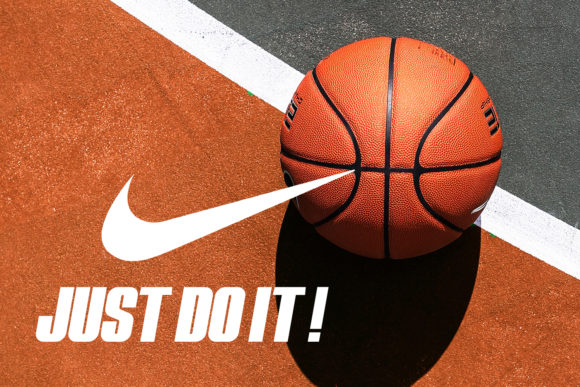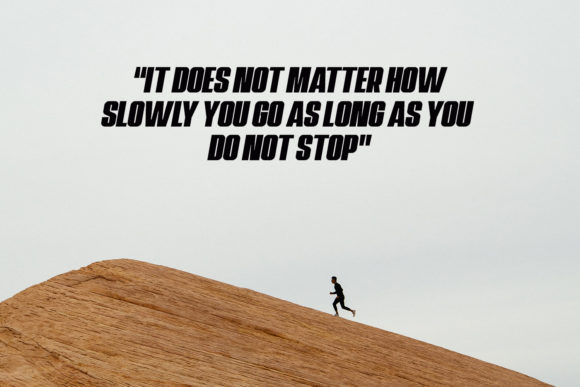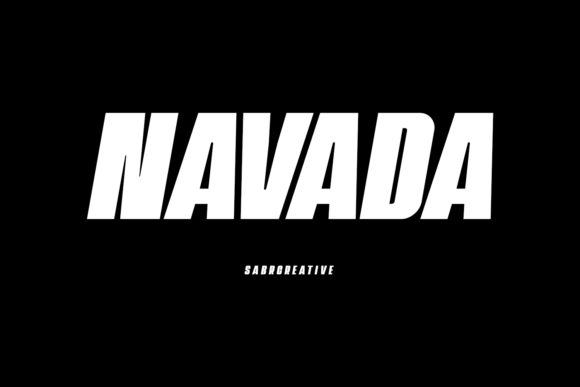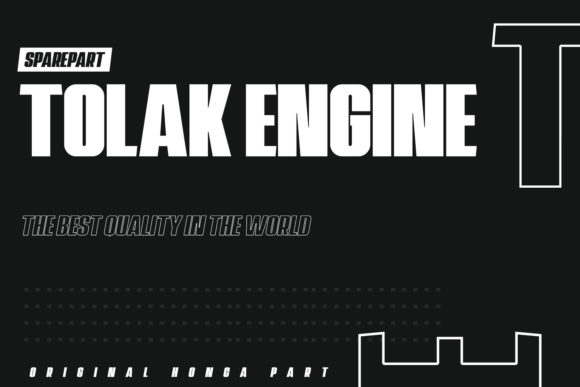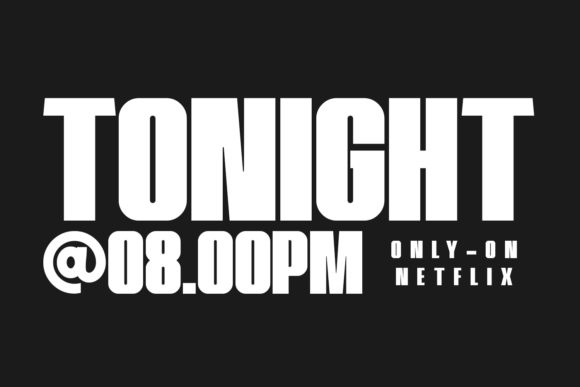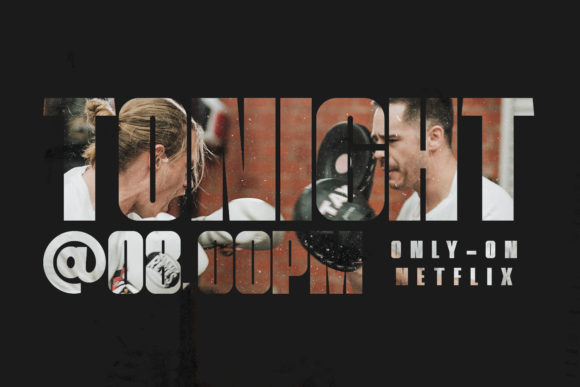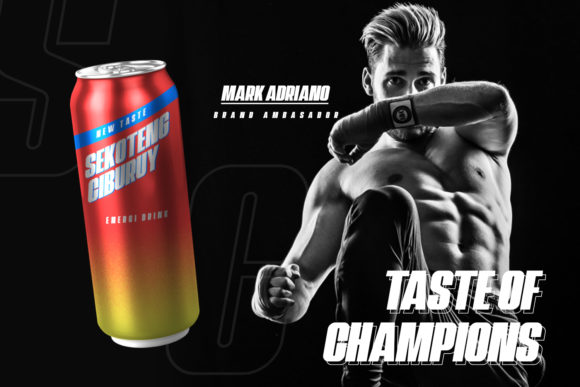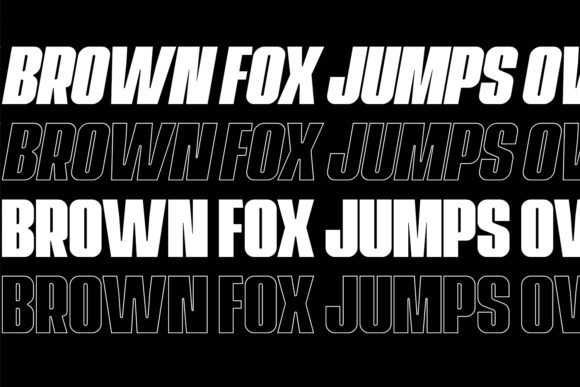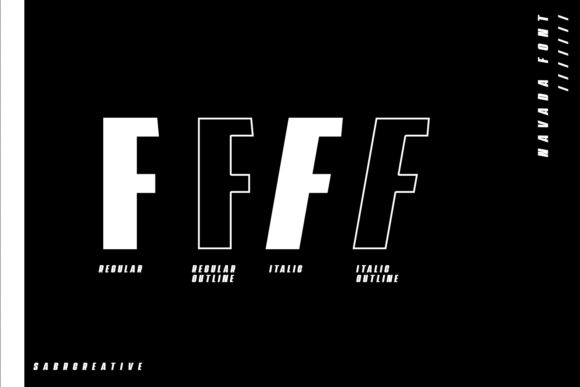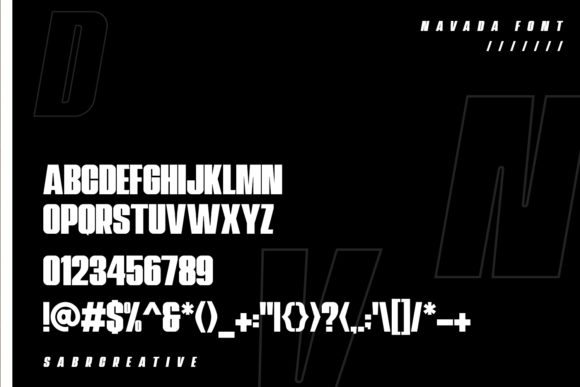
HomeSans Serif FontsNavada Font Sans Serif Fonts Navada Font FacebookXPinterestWhatsApp Navada font 1 of 12 About Navada Font Navada is a stunning family of fonts. This sans serif family is a true standout! DOWNLOAD NOW People also explored Sermier Font So Lovely Font Queenbee Font Honeymoon Font Samitas Font Tuesday Morning Font Sunlight Font Aubrey Font Alyza Font 375 0 TagsNavadaNavada Font Previous articleEngula FontNext articleShofar Font LEAVE A REPLY Cancel reply Comment: Please enter your comment! Name:* Please enter your name here Email:* You have entered an incorrect email address! Please enter your email address here Website: Save my name, email, and website in this browser for the next time I comment. Personal Use Free Dakwart Letter Personal Use Free Read more about this font Lollipop Melody Personal Use Free Read more about this font Calega Personal Use Free Read more about this font Starborn Font Personal Use Free Read more about this font BLOG 5 Fonts That Will Dominate Design Trends in 2026 5 Fonts for 2026 That Will Dominate Design Trends Typography plays a critical role in visual communication, and as we look ahead to 2026, it’s... Top 10 Handwritten Fonts That Elevate Your Designs Fonts That Capture the Spirit of New York City Transform Your Website: Elevate Your Typography with 7 Best Web Font Generators